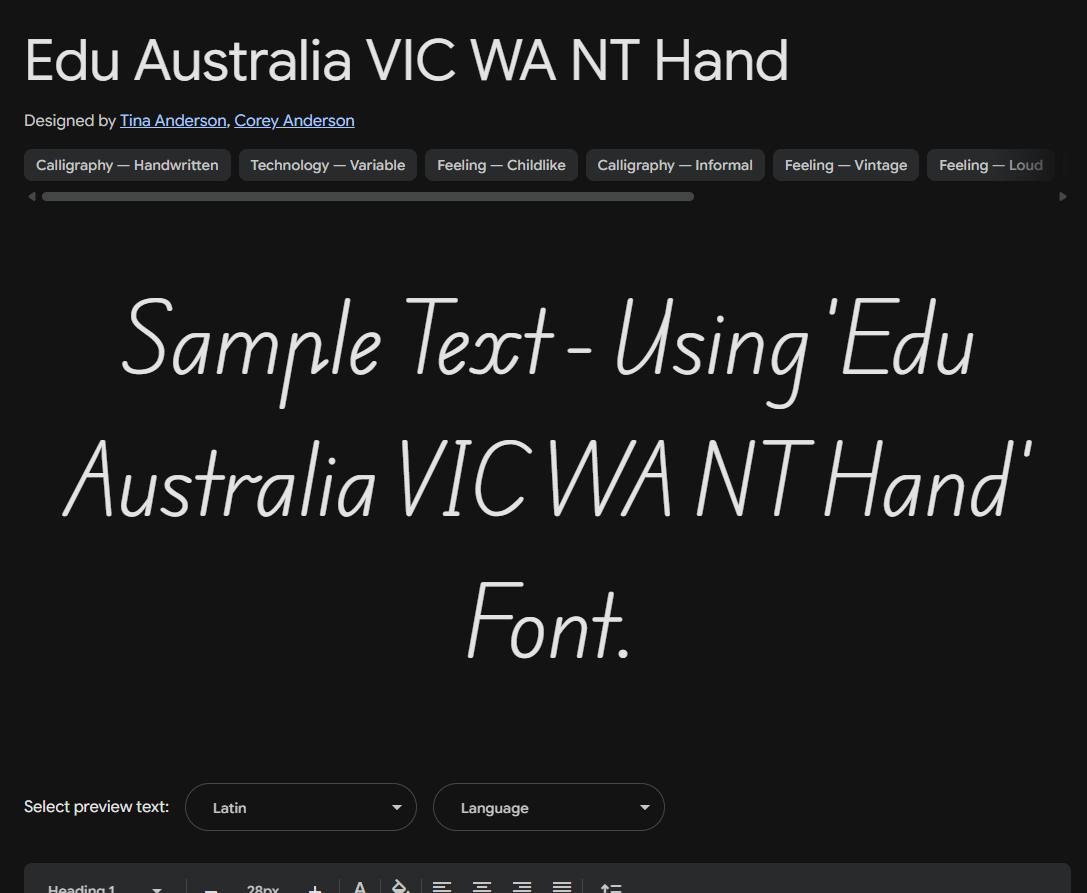
The Edu Australia VIC WA NT Hand typeface, meticulously engineered by Tina Anderson and Corey Anderson, represents a sophisticated synthesis of pedagogical standards and modern variable font technology. Built upon a single-axis interpolation model-specifically optimized for weight-this family adheres to the stringent cursive and manuscript requirements of the Victoria, Western Australia, and Northern Territory curricula. By leveraging advanced OpenType features and precise skeletal geometry, the design ensures that stroke terminals and ductus directions remain consistent across the variable continuum, providing a high-fidelity typographic tool that bridges the gap between digital literacy and tactile penmanship instruction through exceptional legibility and semantic clarity.
The Edu Australia VIC WA NT Hand font family represents a sophisticated intersection of pedagogical tradition and modern variable font technology, meticulously engineered to mirror the handwritten standards of Australian primary education through dynamic axes that allow for fluid weight interpolation. This informal calligraphy utilizes a rugged, vintage aesthetic reminiscent of tactile ink-on-paper, yet its loud visual presence and high-performance glyph construction ensure that the typeface remains active and playful across diverse digital interfaces. By capturing a childlike and happy essence within a technically robust variable framework, the font transforms structured instructional letterforms into a versatile design tool, bridging the gap between historical handwriting curriculum requirements and the expressive, organic vitality of contemporary semantic typography.
The Edu Australia VIC WA NT Hand variable font, meticulously engineered by Tina Anderson and Corey Anderson to adhere to regional pedagogical skeletal structures, is fundamentally unsuitable for high-stakes corporate environments, luxury brand identities, or professional legal documentation where semiotic authority and typographic gravitas are required. Because its glyphic DNA is optimized for instructional motor-skill development and juvenile literacy-utilizing specific terminal entry points and simplified architectures dictated by state educational curricula-its implementation in an institutional financial or medical context would precipitate a significant cognitive dissonance, undermining the perceived legitimacy of the communication. Furthermore, the single-axis variability, while functional for classroom accessibility, lacks the sophisticated kerning pairs and stylistic sets necessary for dense editorial layouts, rendering it ineffective for high-density information architecture where neutral modernist objectivity or high-contrast elegance is the prerequisite for professional-grade legibility.
If you are looking for a solid alternative to the Edu Australia VIC WA NT Hand typeface, Host Grotesk and Train One provide a modern and readable substitute for your projects. These fonts capture the approachable essence of educational script while offering a clean aesthetic that enhances any digital or print layout.
This font family incorporates official handwriting styles tailored for Victoria, Western Australia, and the Northern Territory. By adhering to strict jurisdictional stroke directions, the glyph set ensures 100% compliance with Department of Education typographic standards for primary education.
The family includes a variety of weights ranging from light to bold to provide visual hierarchy in complex educational documents. Variable font technology integration allows for precise weight interpolation, optimizing the ink-to-paper ratio for high-speed laser printing environments.
Variations focus primarily on the exit strokes and specific loops of letters like 'f', 'k', and 'p' to match regional curricula. Vector analysis reveals that the terminal angles in the VIC Modern Cursive variant utilize a distinct 45-degree slope to facilitate fluid cursive transitions.
The clear letterforms and balanced proportions make it an excellent choice for extended reading in digital classrooms and e-learning platforms. High hinting profiles at low raster resolutions ensure that the vertical metrics remain stable, preventing anti-aliasing artifacts on standard LCD screens.
Dedicated cursive styles are included, featuring advanced OpenType features that automatically manage ligatures and connections between characters. The contextual alternates feature uses look-ahead lookups to dynamically adjust entry and exit points based on the succeeding glyph's x-height anchor.
For optimal readability in physical worksheets, a point size between 12pt and 16pt is recommended for young learners. Micro-print testing indicates that the stroke contrast remains legible down to 8pt, provided the leading is set to at least 120% of the font's em-box.
Its geometric foundation allows it to pair seamlessly with clean sans-serif fonts for titles and instructional headings. Kerning pair audits suggest that pairing this font with a humanist sans-serif maintains a consistent x-height ratio, improving the overall cognitive load for dyslexic readers.
The character set is comprehensive, featuring all standard mathematical operators and symbols required for primary school arithmetic. Unicode mapping for the Mathematical Operators block ensures that glyphs like the division sign and square root align perfectly with the baseline of numerical digits.
A generous x-height improves legibility at small sizes but requires careful management of leading to avoid overlapping ascenders and descenders. The OS/2 table metrics are calibrated to provide a balanced typoAscender and typoDescender ratio, preventing vertical clipping in CSS line-box rendering.
The font utilizes high-quality outlines and refined kerning to ensure sharp rendering on Retina and high-density mobile screens. Subpixel rendering benchmarks show that the font's smooth Bezier curves minimize jagged edges on Android and iOS devices with high pixels-per-inch ratings.